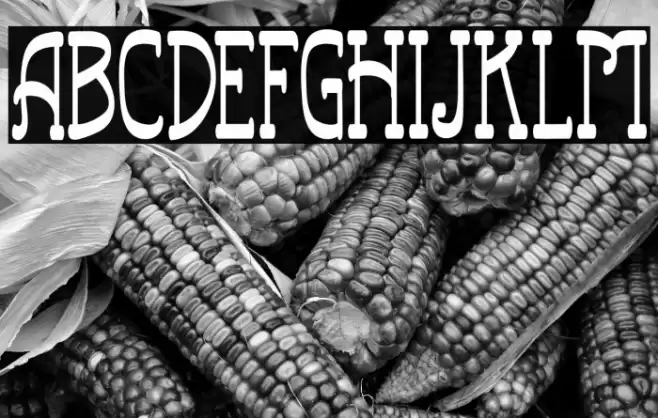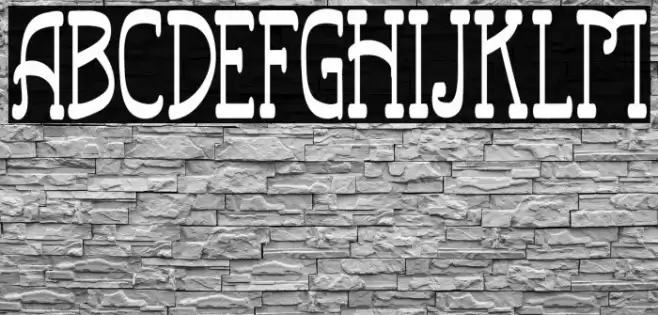
RailwayFREE Font
RailwayFREE Description
This font features a bold, decorative style with a distinct vintage flair. The characters are designed with rounded edges and prominent serifs, giving them a playful yet structured appearance. The uppercase letters are tall and commanding, while the lowercase letters maintain a consistent style that complements the overall design. The font's unique aesthetic is reminiscent of old railway signage, with a touch of whimsy in its curves and strokes. It is well-suited for projects that require a standout, retro-inspired look.
A bold, decorative font with a vintage railway-inspired style from Uncategorized fonts.
- Font: RailwayFREE
- Proposed Projects: Ideal for posters, signage, branding, and any project seeking a retro or vintage theme.
- Overall Style: Vintage